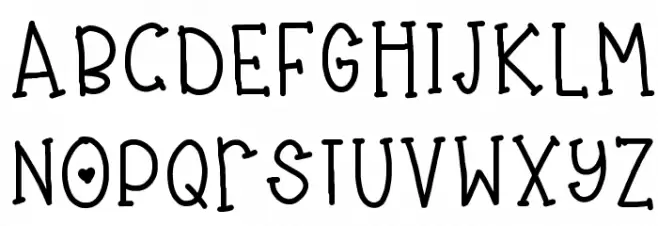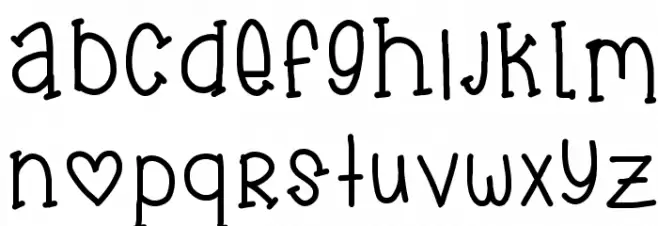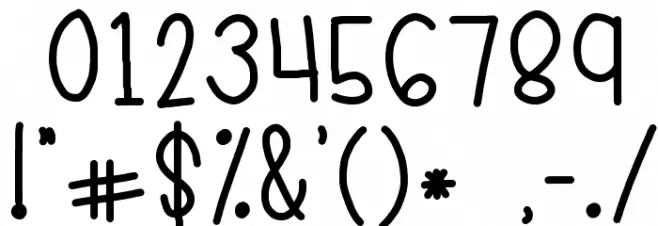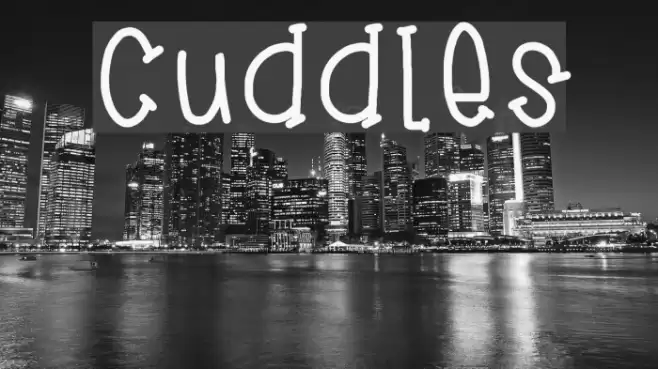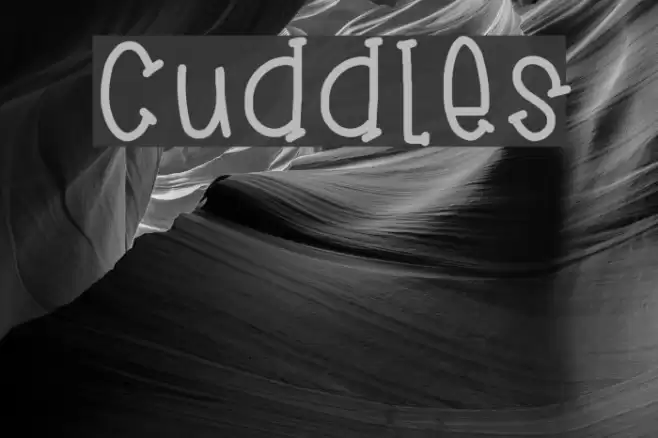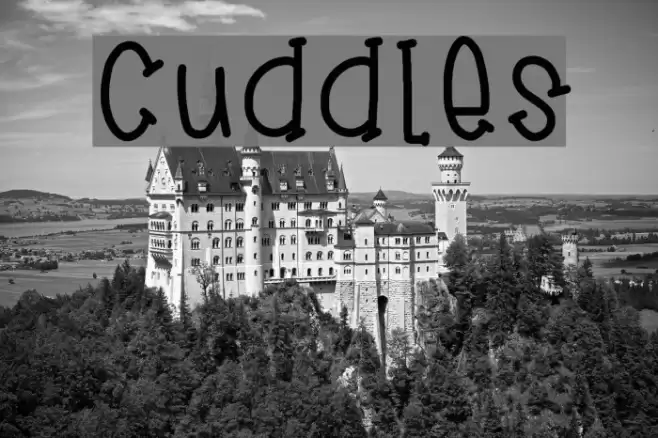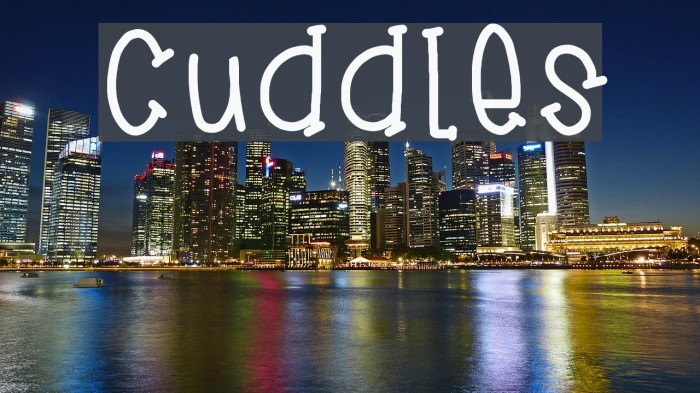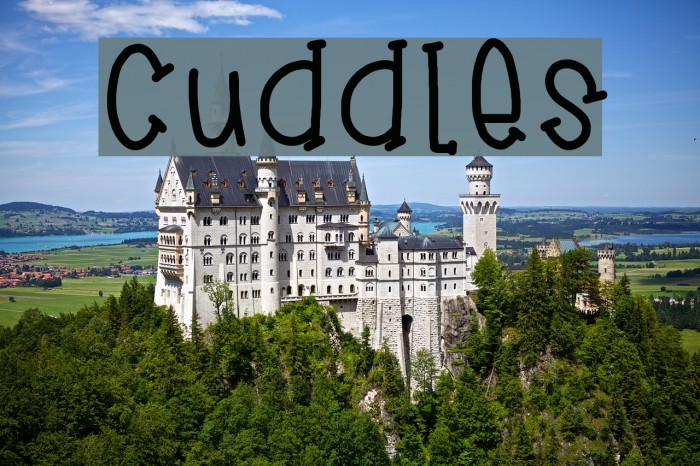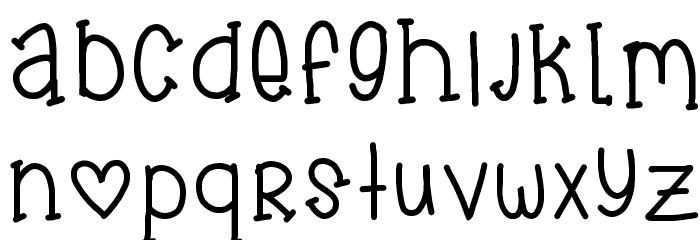
cuddles
This playful and whimsical font features a handwritten style with a charming, casual appearance. The letters are slightly irregular, adding to the font's friendly and approachable feel. The uppercase and lowercase characters are distinct yet harmonious, with a consistent stroke width that maintains readability. The numbers and special characters are crafted with the same playful touch, making them suitable for a variety of creative projects. The heart-shaped 'O' adds a unique and endearing element to the design, enhancing its appeal for projects that require a personal or affectionate touch.
A playful, handwritten font with a whimsical and friendly style.
- Proposed Projects: Ideal for children's books, greeting cards, playful branding, and DIY crafts.
- Overall Style: Playful
- Use Case: Headlines, Logos, Invitations